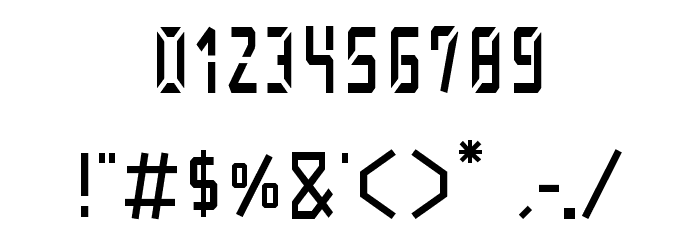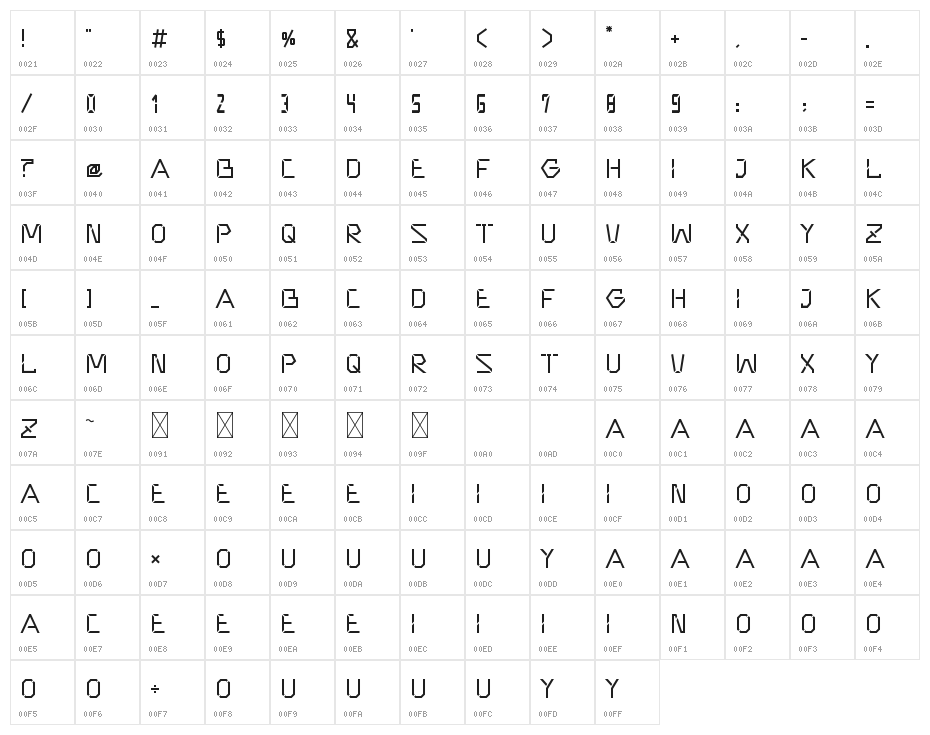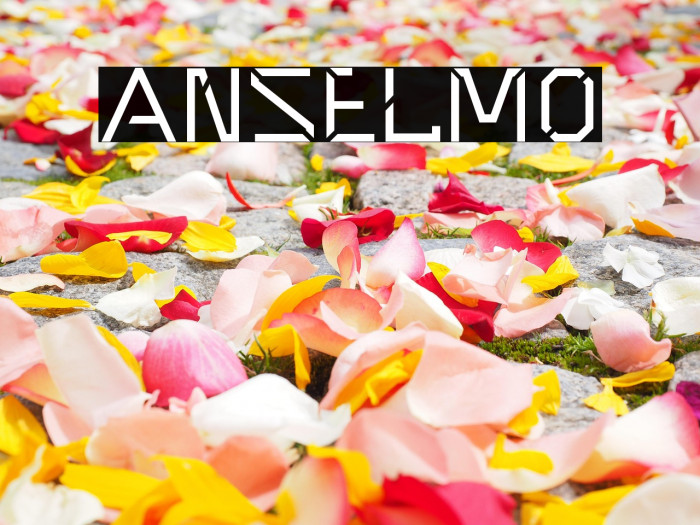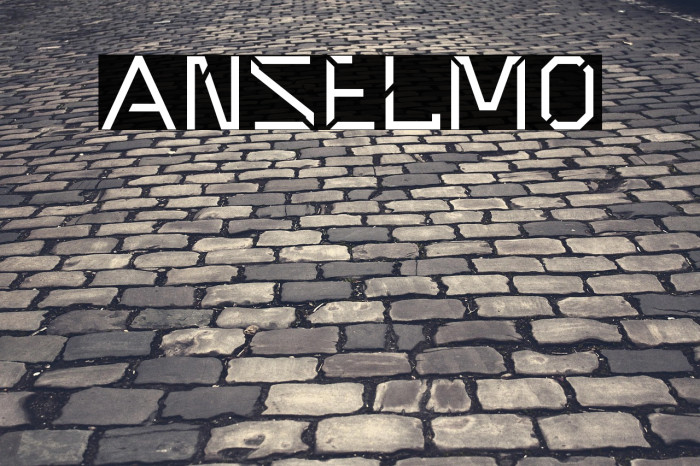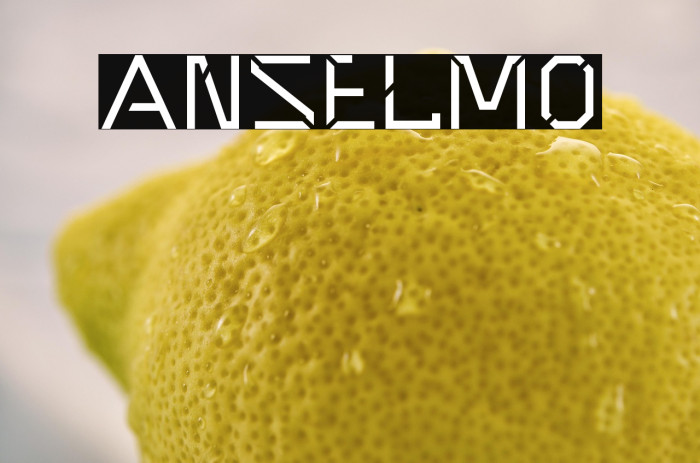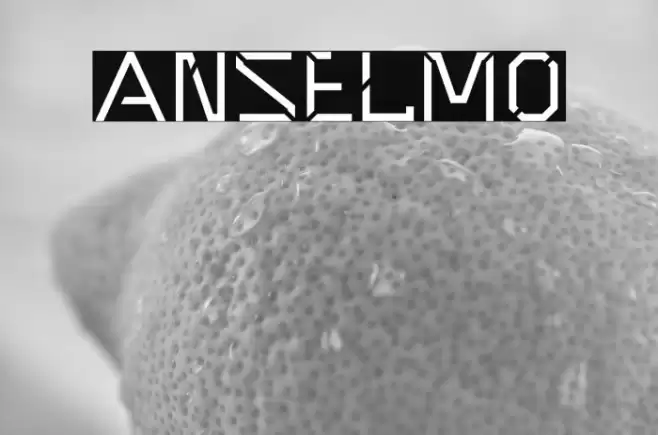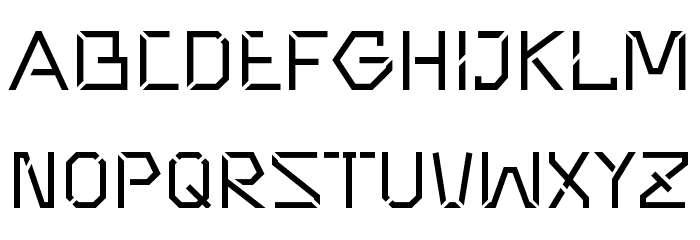
Anselmo Font
Anselmo Description
This font features a bold, geometric design with a futuristic and industrial feel. The characters are constructed with angular lines and sharp edges, giving it a distinct and modern appearance. The uppercase and lowercase letters maintain a consistent style, with a unique approach to each character that emphasizes symmetry and precision. The numerals and special characters follow the same design principles, ensuring a cohesive look across all glyphs. This font's strong visual impact makes it suitable for projects that require a bold statement.